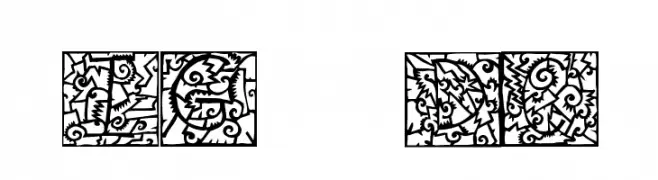
( Gregoryfonts - www.geocities.com/soho/coffeehouse/9609/fonts/fonts.html )
An ornate, vintage-style font with decorative swirls and flourishes.
( Holitter Studios )
A bold, angular font with a dynamic and aggressive style.
( Jecko Development - www.jeckodevelopment.com )
An ornate and decorative font with intricate, flowing letterforms.
( Konstantine Studio - www.behance.net/konstantinestudio )
An elegant and fluid script font with interconnected, graceful strokes.
( LJ Design Studios - www.ljdesignstudios.com )
An elegant, flowing script font with intricate loops and swirls.
( Misti's Fonts - mistifonts.com/ )
An elegant script font with decorative swirls and flourishes.
( Misti's Fonts - mistifonts.com/ )
A playful, handwritten font with rounded edges and a casual style.
( Mouser Fonts - www.mouserfonts.com/ )
A bold, medieval-style font with ornate, calligraphic characters.
A modern, light, and italic font with a clean and sophisticated design.
A bold, cursive font with decorative loops and high contrast, perfect for eye-catching designs.
An expressive, brush-style font with dramatic strokes and a graffiti-like appearance.
An ornate Blackletter font with intricate, historical letterforms.
An ornate blackletter font with intricate, decorative letterforms.
An elegant, flowing script font with a cursive, handwritten style.
A bold, gothic outline font with intricate detailing and a medieval aesthetic.
( Fonts by Kustomtype )
A playful, handwritten-style font with smooth, rounded edges and a casual appearance.
A bold, elegant script font with flowing, cursive letterforms and decorative flourishes.
( Fonts by Illushvara )
A playful, hand-drawn script font with flowing, connected characters.
( Fonts by DM Letter31 )
A whimsical and decorative font with curly, looping strokes and elegant flourishes.
( Fonts by 160 Studio )
A playful and whimsical font with bold, rounded characters and expressive curves.
( Fonts by Darwinoo )
A whimsical and decorative font with intricate swirls and curls.
An elegant, flowing script font with whimsical loops and curves.